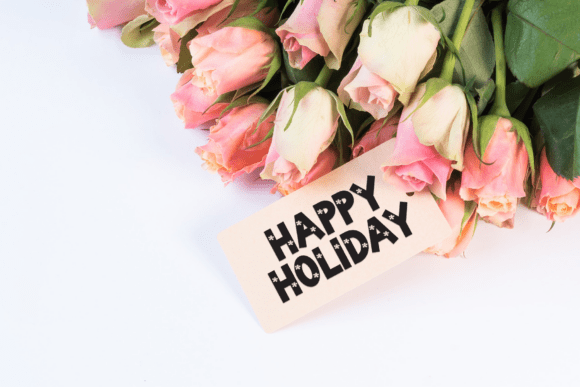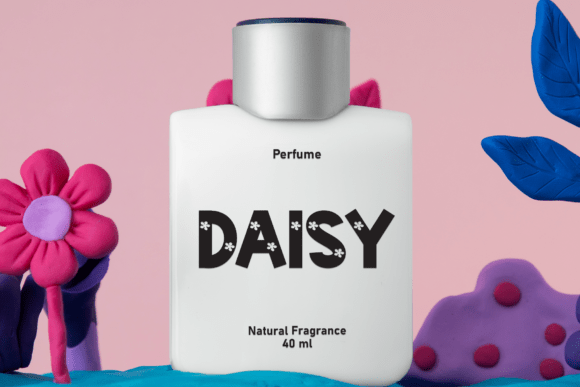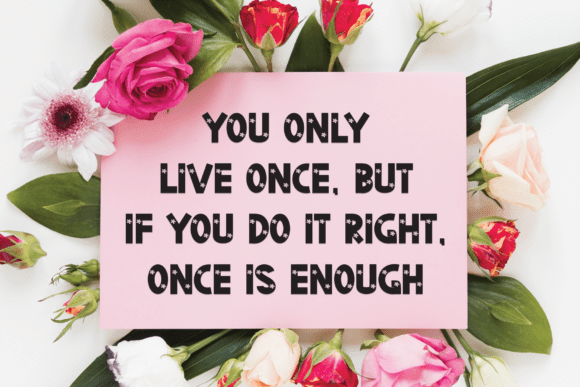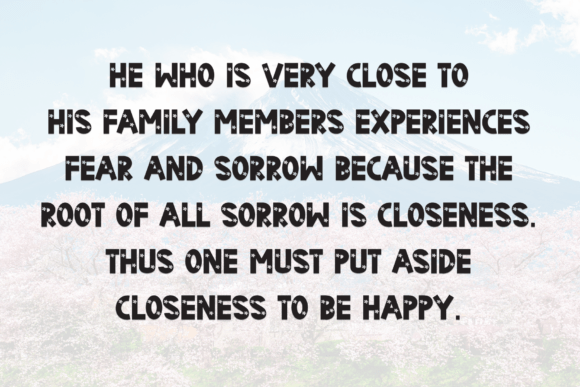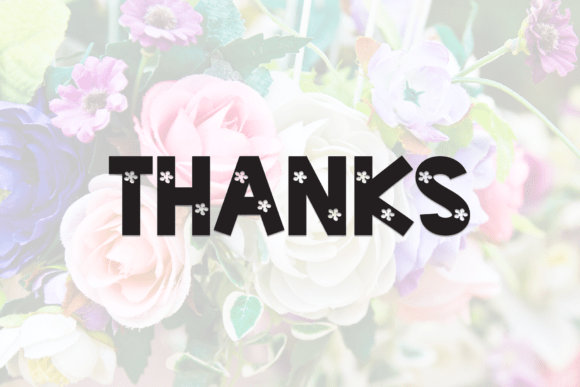
The Blooming Beauty of Flower Fonts: A Deep Dive into Beautiful Flower
I’ll never forget the time I was working on a spring-themed project for a client, and I just couldn’t find the right font to capture the essence of the season. The design needed to be playful, yet structured; bold, yet delicate. That’s when I stumbled upon the Beautiful Flower font, and it completely transformed my design. In this article, I’ll share my experience with this stunning font, its features, and how to make the most of it in your designs.
An Honest Review of Beautiful Flower
- ✨ The unique combination of bold geometric letterforms and charming floral cutouts embedded within each character.
- ✅ The playful yet structured design makes it perfect for a variety of projects, from spring or garden-themed designs to children’s projects.
- 💐 The font’s ability to merge strength and softness, offering a visually engaging and whimsical touch.
- 🎉 The standout style that adds personality to every letter, making your designs truly special.
While Beautiful Flower is an amazing font, there are a few things to keep in mind:
- 🤔 The font’s intricate design might not be suitable for very small font sizes or low-resolution images.
- ⚠️ Some characters might require manual kerning for optimal spacing.
- Experiment with the font’s OpenType features, such as stylistic alternates, to add more personality to your text.
The Designer Inspiration Behind Beautiful Flower
The story behind Beautiful Flower begins with a designer’s passion for nature and typography. The creator, a talented typographer, was inspired by the beauty of flowers and the art of lettering. They aimed to craft a font that would bring a touch of whimsy and elegance to any design. And so, Beautiful Flower was born – a font that combines the best of both worlds.
Q: What makes Beautiful Flower unique?
A: Beautiful Flower’s unique combination of bold geometric letterforms and charming floral cutouts sets it apart from other fonts.
Q: Is Beautiful Flower suitable for body text?
A: While Beautiful Flower is stunning, it’s best used for headlines, titles, or short paragraphs. Its intricate design might not be suitable for long-form body text.